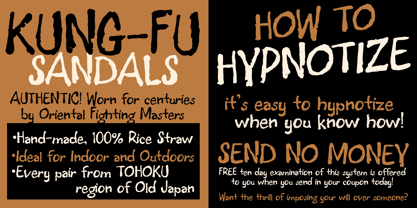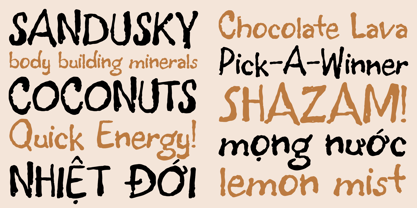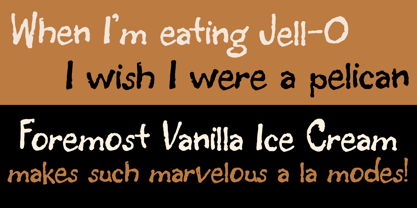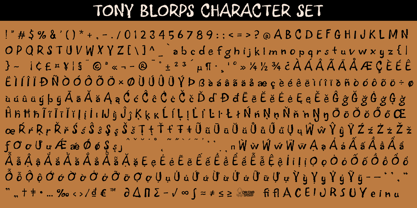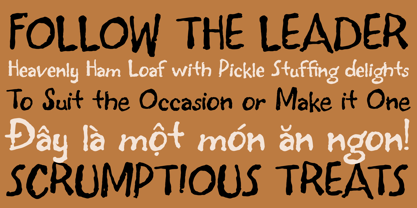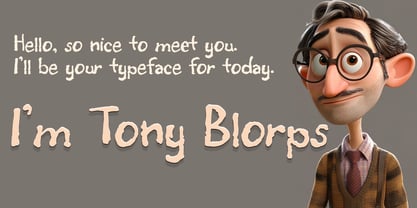
Tony Blorps
by One Eyed Squid
The Tony Blorps Font Family was designed by Brian J. Bonislawsky, Dave Cohen and published by One Eyed Squid. Tony Blorps contains 1 styles.
Allow me to introduce myself, I'll be your typeface for today, my name is Tony Blorps.
I'm a handwritten font with a quirky and roughened personality, but I have a lot of heart and a fun side. I like long typesettings in a document, and sunsets while sitting at my computer. Let's run off and desktop publish together. Shh! Don't think, just type with me.
(Tony Blorps contains an extended Latin character set with added Vietnamese support.)
About One Eyed Squid
Dave "Squid" Cohen & Brian "Stiggy" Bonislawsky combine their fontmaking talents to bring you an array of fun and entertaining typefaces loaded with animated and diverse retro flavor.You may know Dave Cohen's fonts from Sideshow and Neapolitan type foundries, as you may know Brian Bonislawsky's fonts from Astigmatic (AOETI), Grype, Pink Broccoli, Monogram Fonts Co., Stiggy & Sands, and VersusTwin type foundries.So what is this foundry all about? It's all about bringing collaborative skills to bear to express more of their crazy typographic ideas and create even more exciting fonts to the design community.